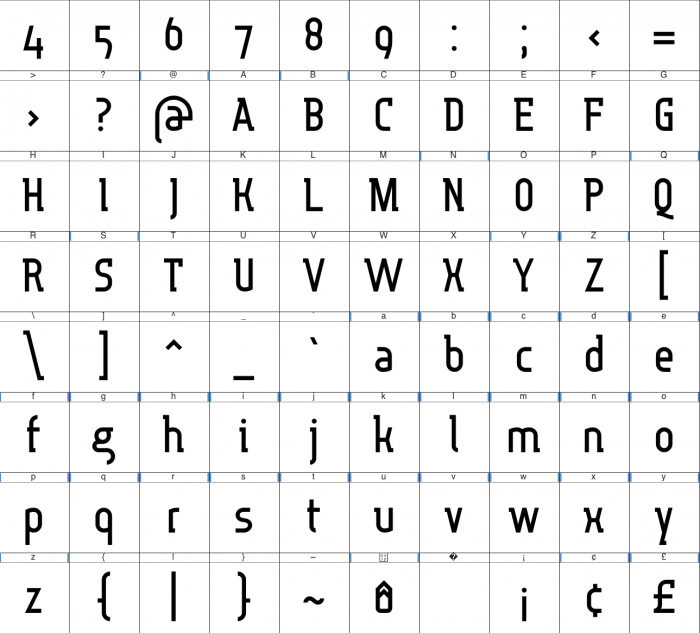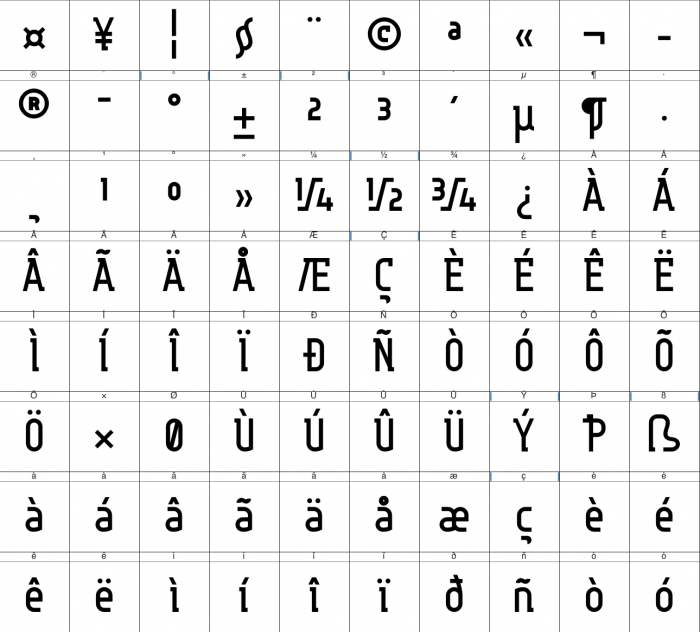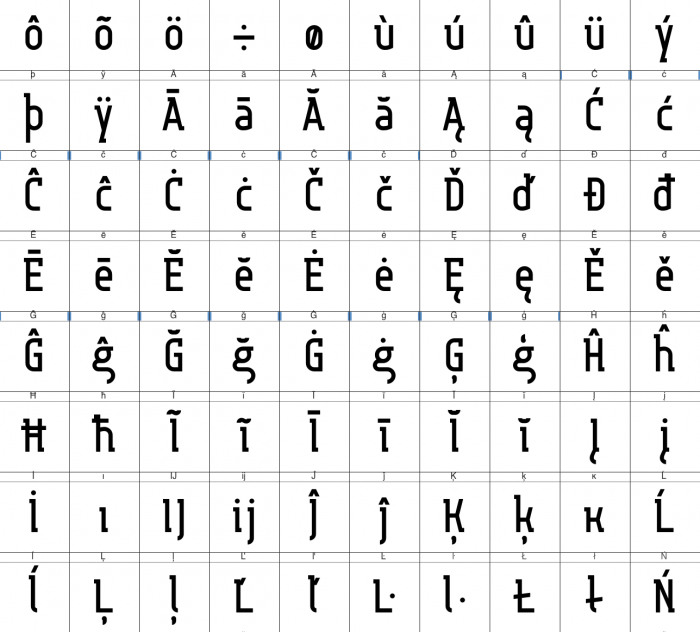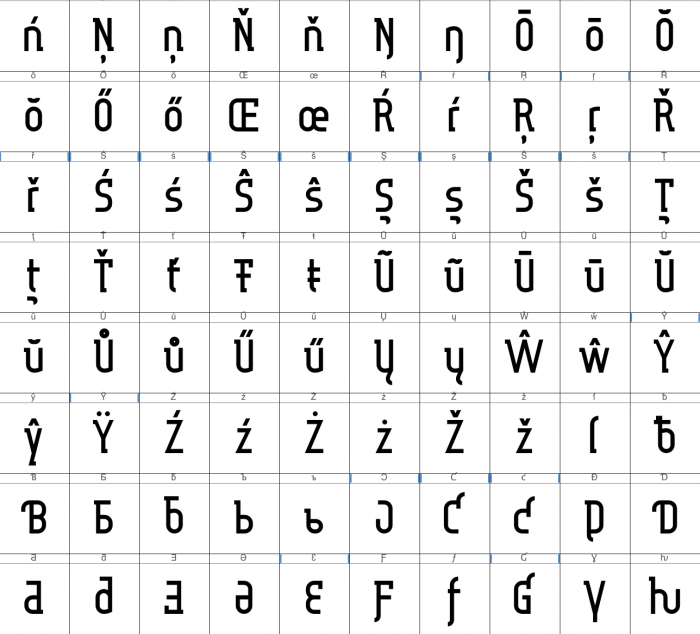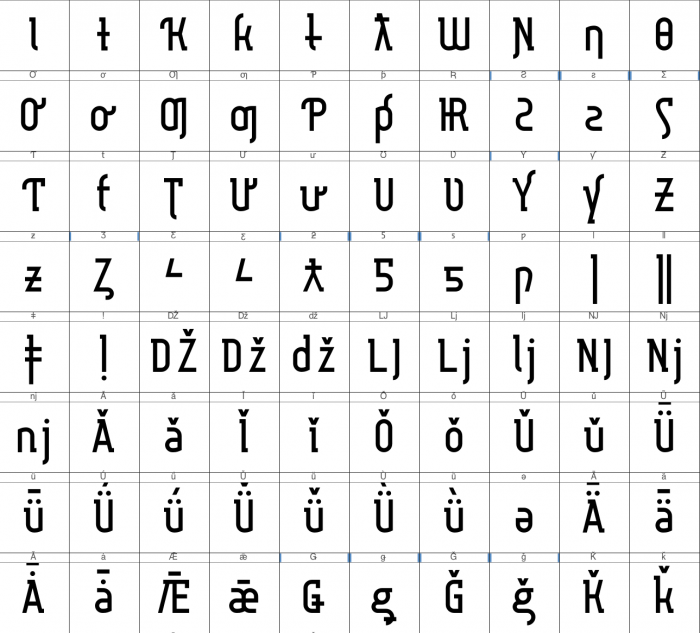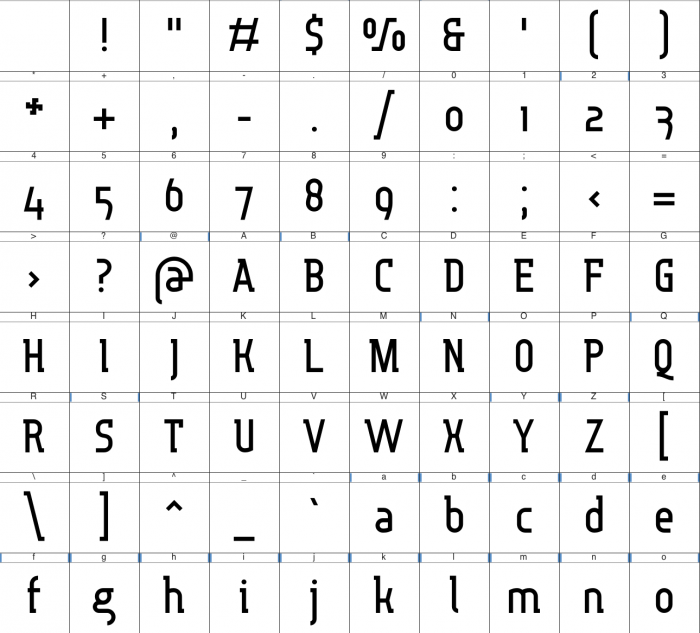
• Avenura was the influence for this font, which has been redrawn and is now called Gawaa. You can get it on Font Squirrel.
This is what I've been playing around with recently. I liked the idea of trying to do such a small-scale font, and have created some pleasing letters. I'm now working on this with Font Forge and have altered the design a bit from this version. I had been thinking about adding half serifs, which I have—only i, j, v, w, and y have them here. I've also reversed the curves of the letters. The font, apparently, wanted to be a specific way. :)
I've also redrawn the circles for the copywright, recording symbol, information, reserved, et cetera. Something I am unable to do here; that, and altering certain letters and their spacing. I'll post some pictures once I'm finished with it.
Is that an Au ligature I seein the Ă, ă??
@77: No. I placed extra characters here and there, which I will move to their unicode points. That A belongs to Kaolib, an African language, and is typically designed similar to an @. It's more like and Ao ligature than Au. There is an Au ligature in Latin D, however, as well as Aa, Ao, and Ay—Old Norse. This character is part of the SIL additions in the Private Use Area;, thus, I cannot add them here in their code points. The same goes for the capital forms of hooked Z and D—I placed the capitals here next to the lowercase in the phonetic extensions supplemental block. :)
Some samples:
I believe so, yes. You can think of it as combination of A + Ɔ. I decided to design it this way because having it fully circled looks odd. And, thank you. You should see its new version, Gawaa, on Font Squirrel.
P.S.: It's nice to see other designers adding the SIL glyphs. :)
I'm familiar with that site, and have used it quite a lot, as well as SIL's. I've had to search over the years through numerous Unicode proposals to find references to a lot of glyphs. This was due to them having an incorrect image in Unicode, or name, such as Latin letter Oi, which is actually a form of G, called Gha. This is why I've been updating my text font (originally Dehuti) over the years, for better design, as well as character flow. It's now called Dihjauti.